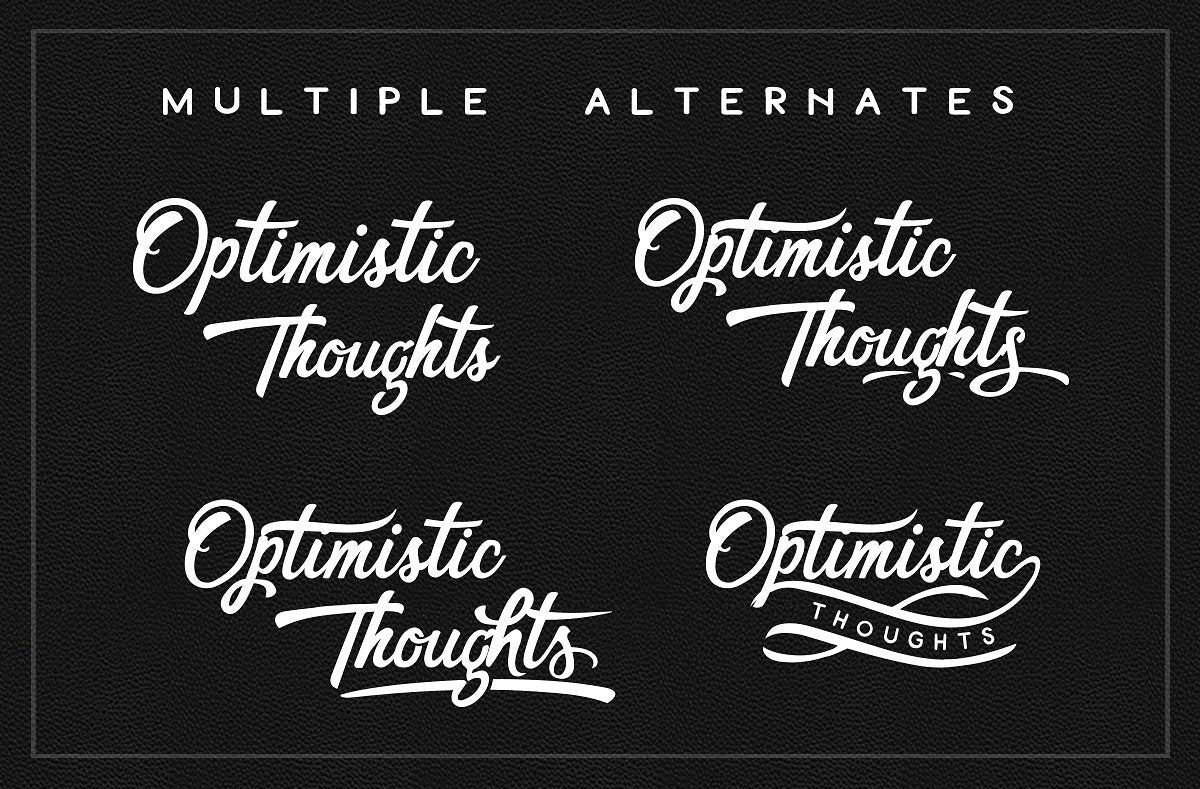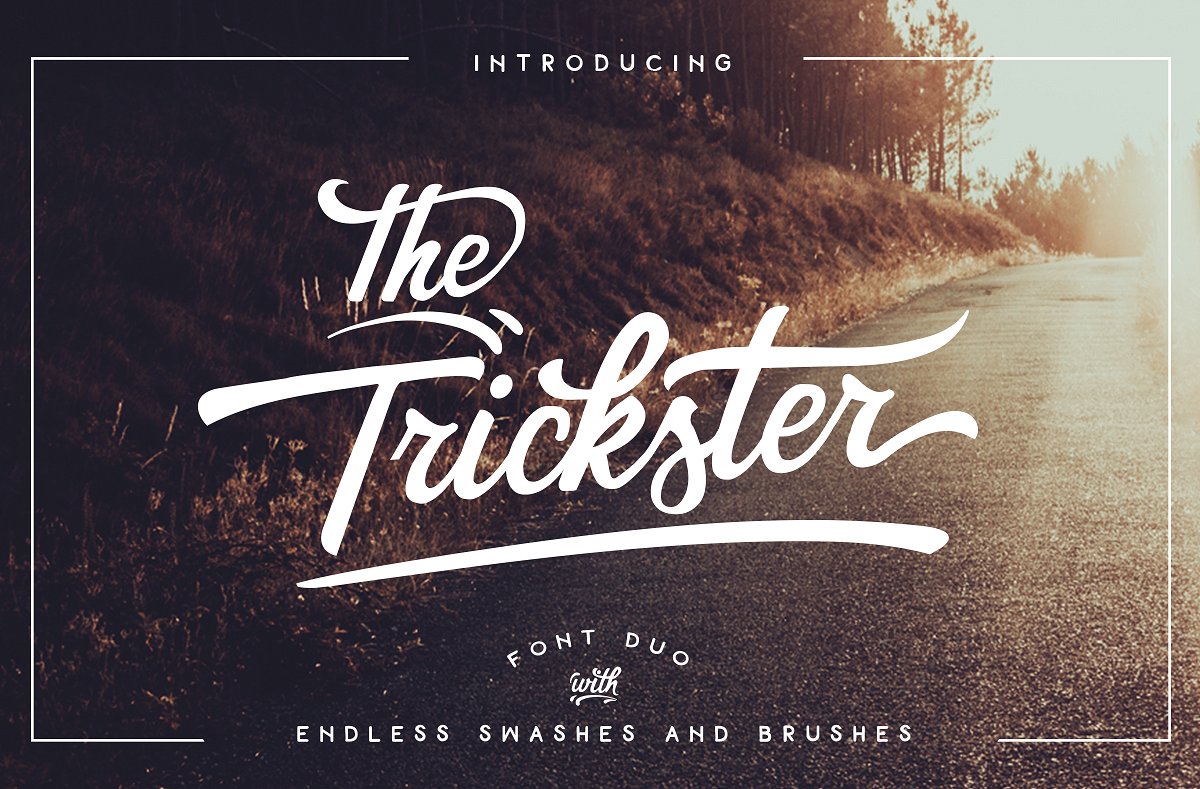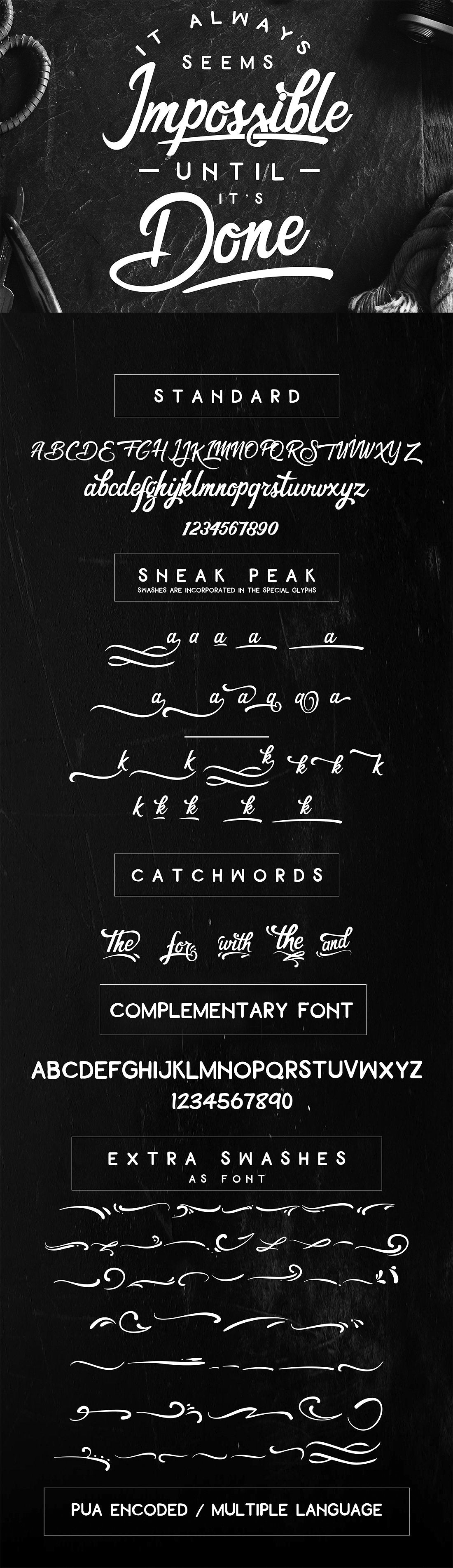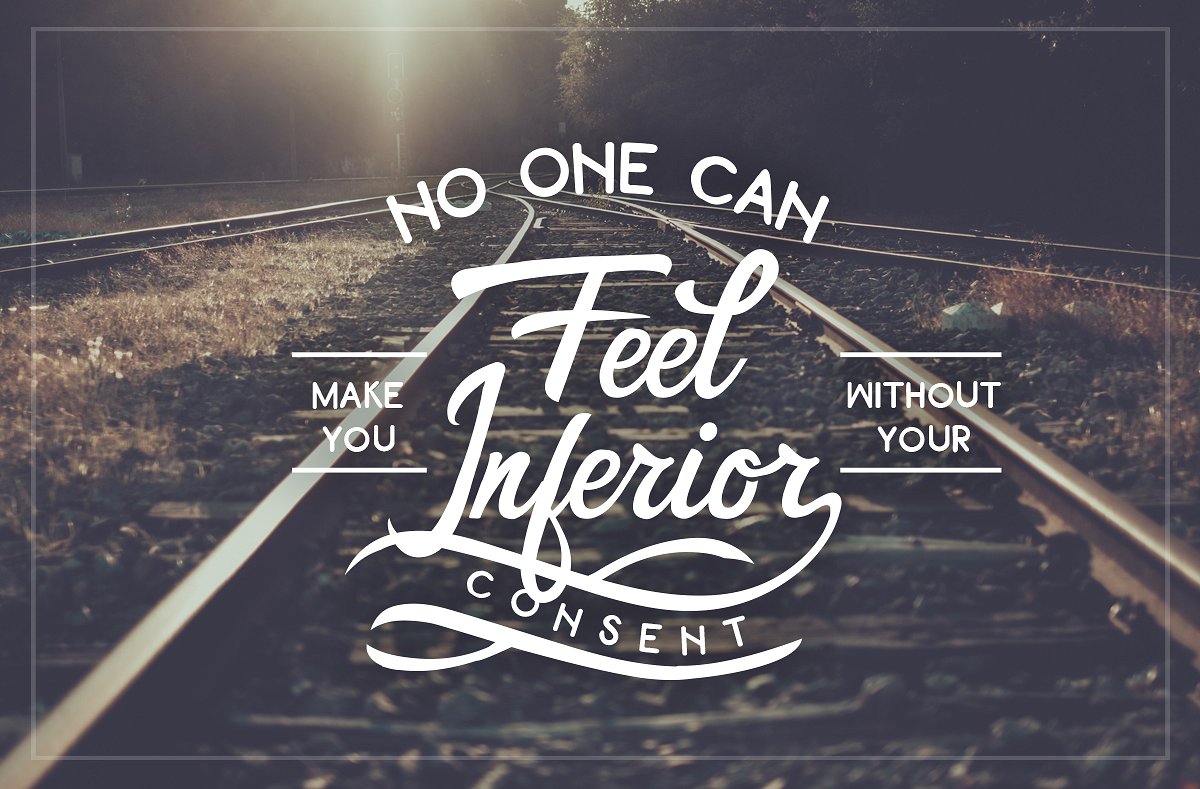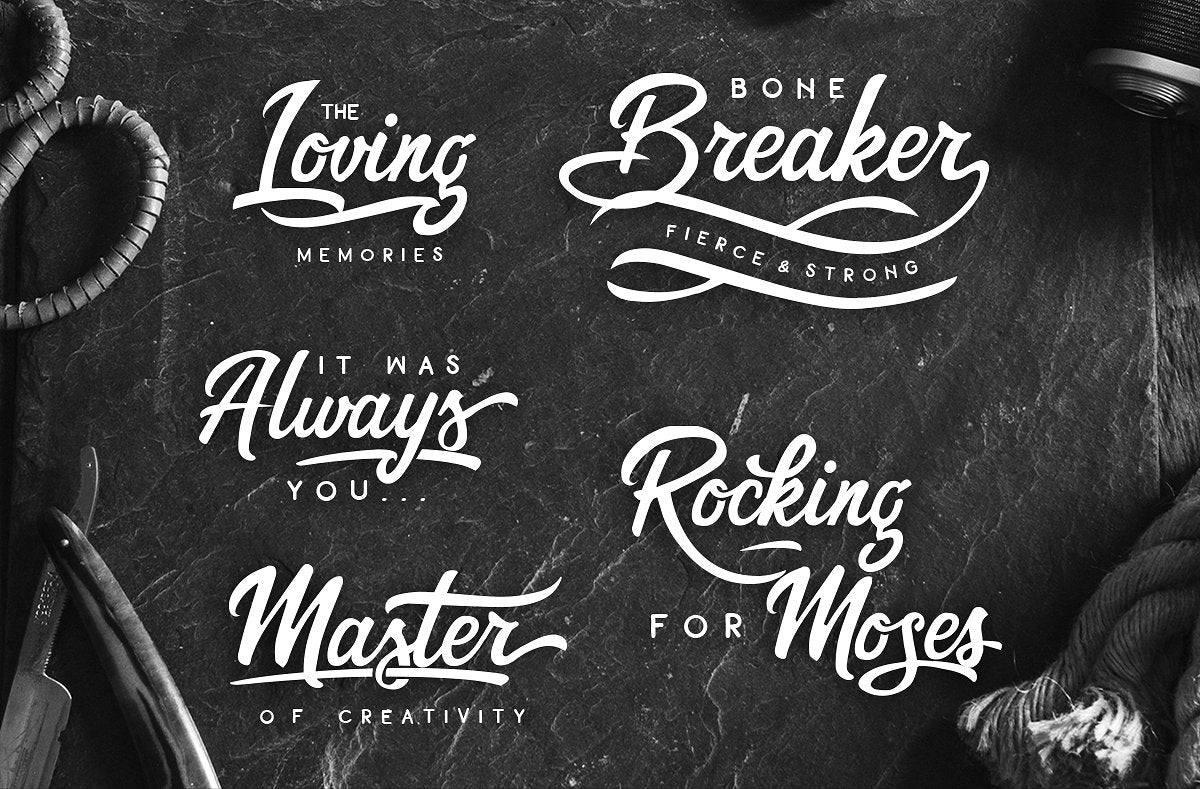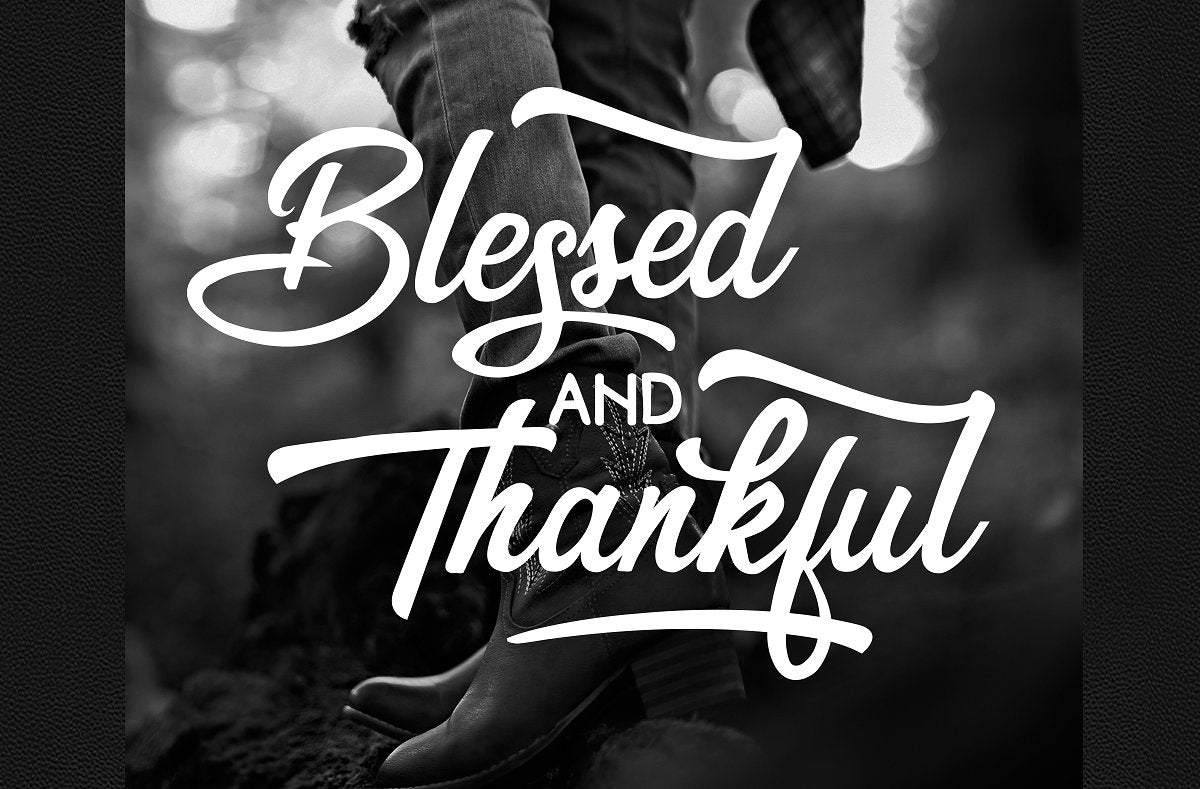
The Trickster Font Duo + extras
The Trickster is a display font with lots of alternatives and brushes plus a complementary font and another one with swashes.
The font has PUA Unicode (Private Use Areas - font specific code), so
that all the alternative characters (with flourishes and swirly lines)